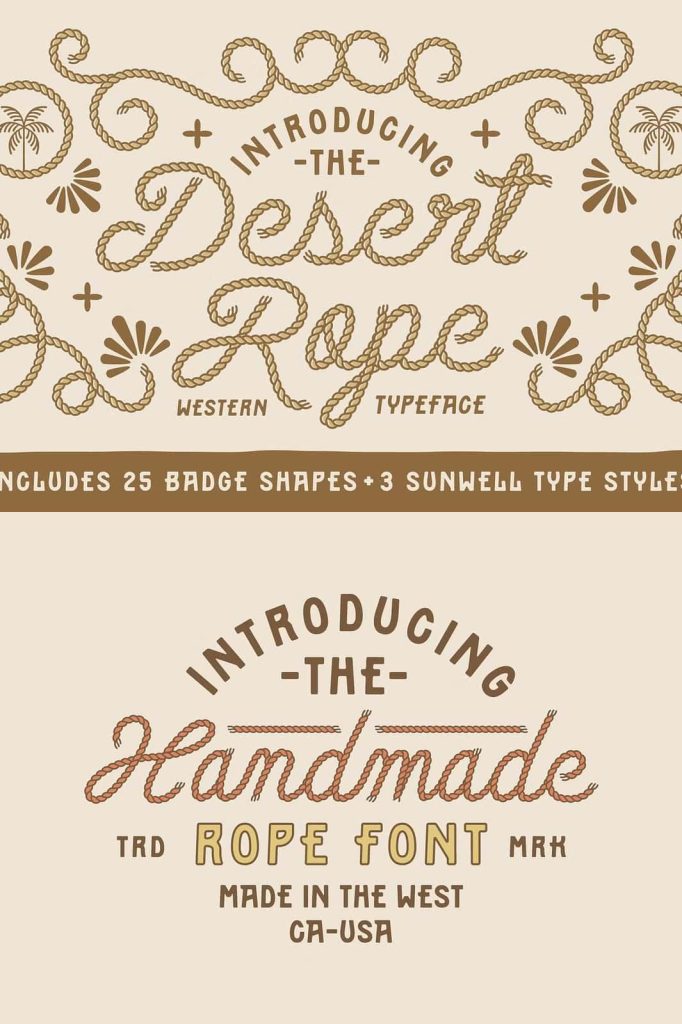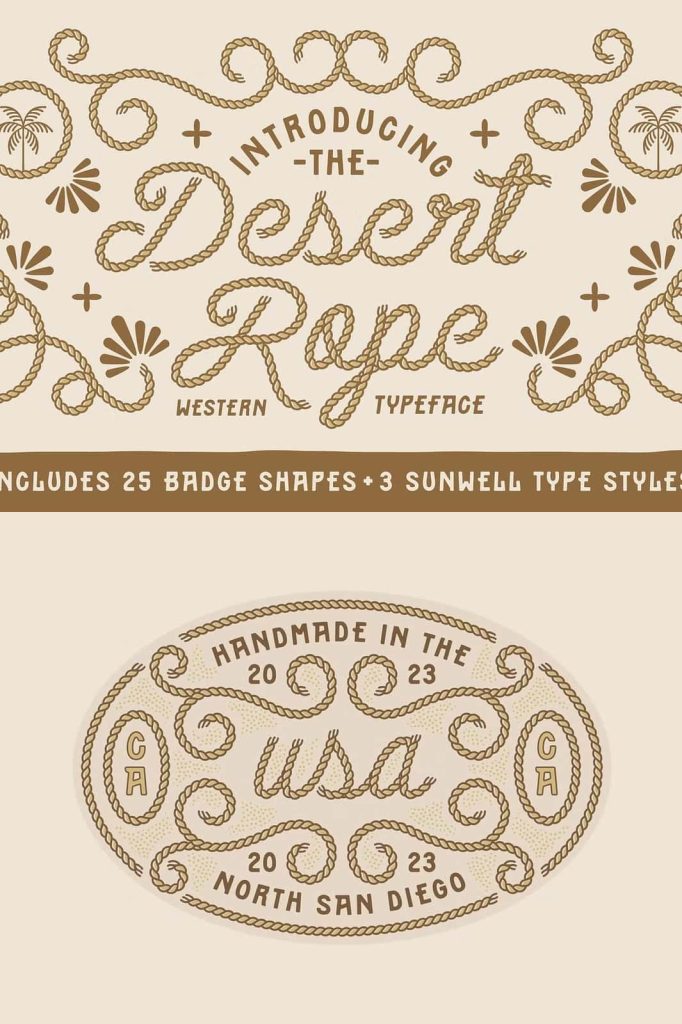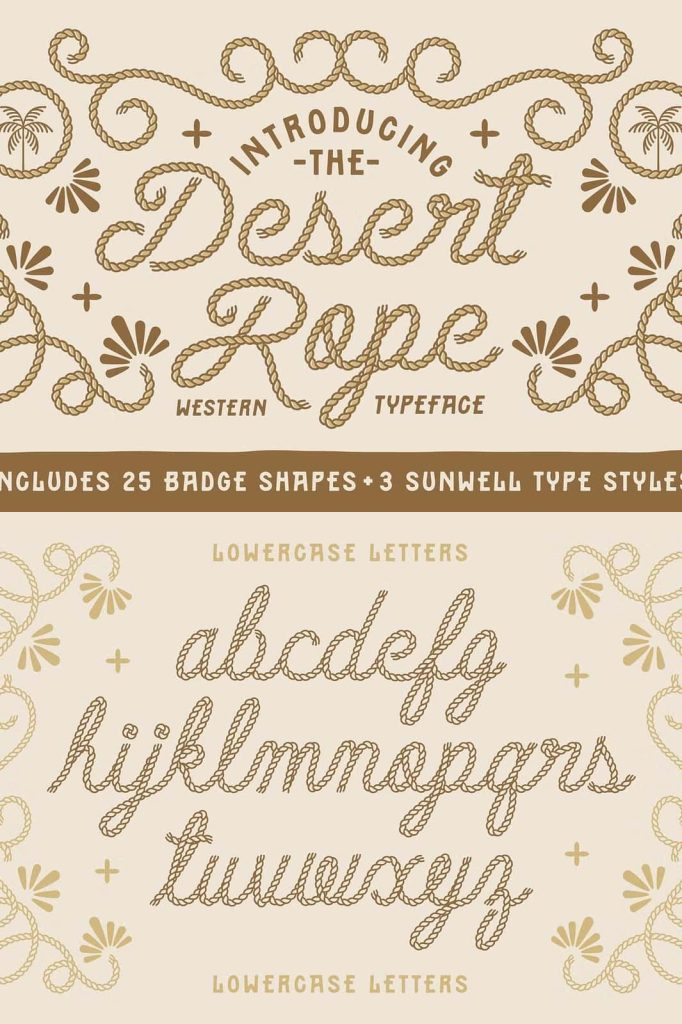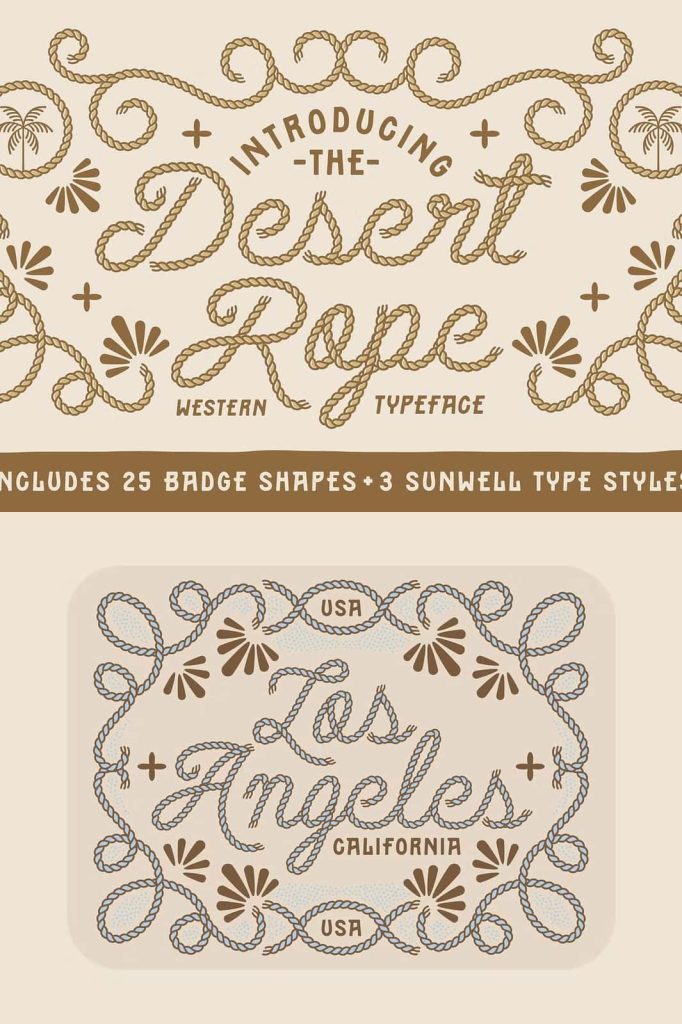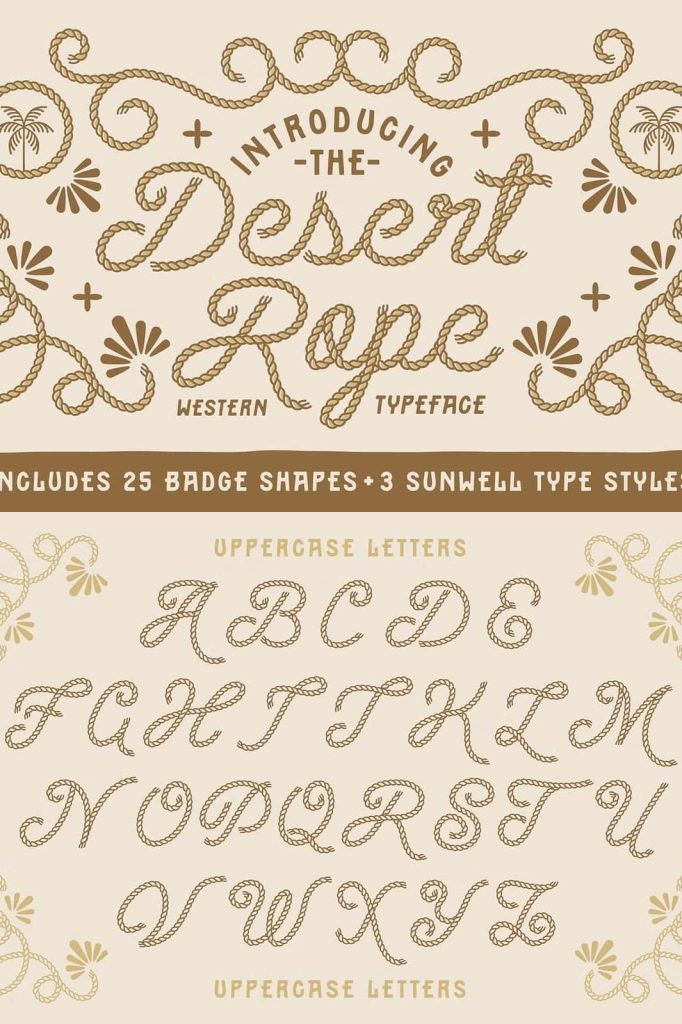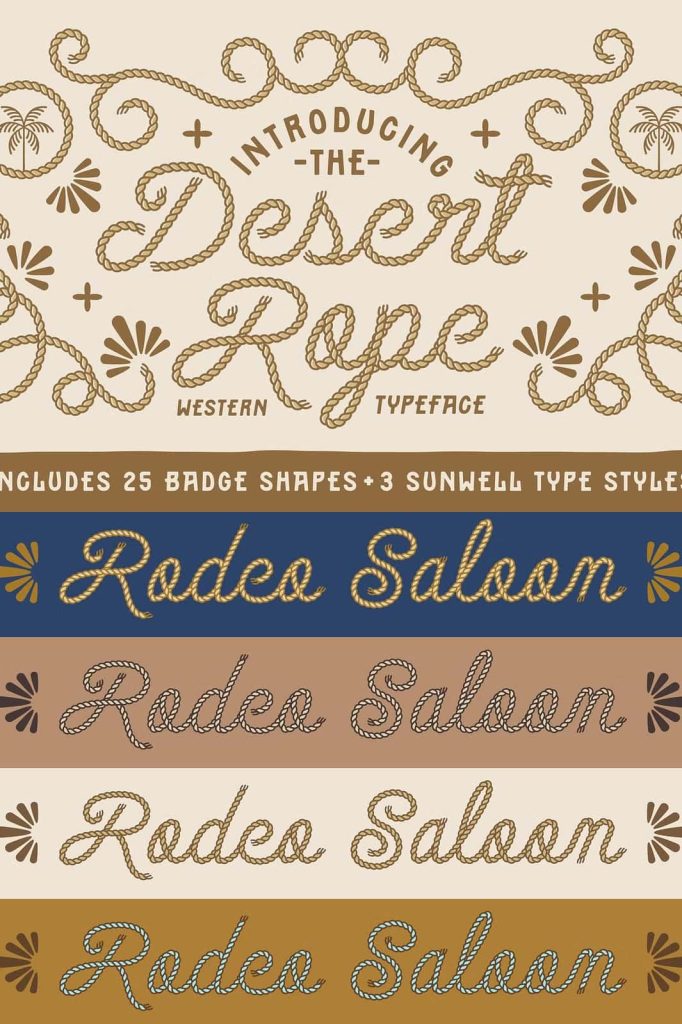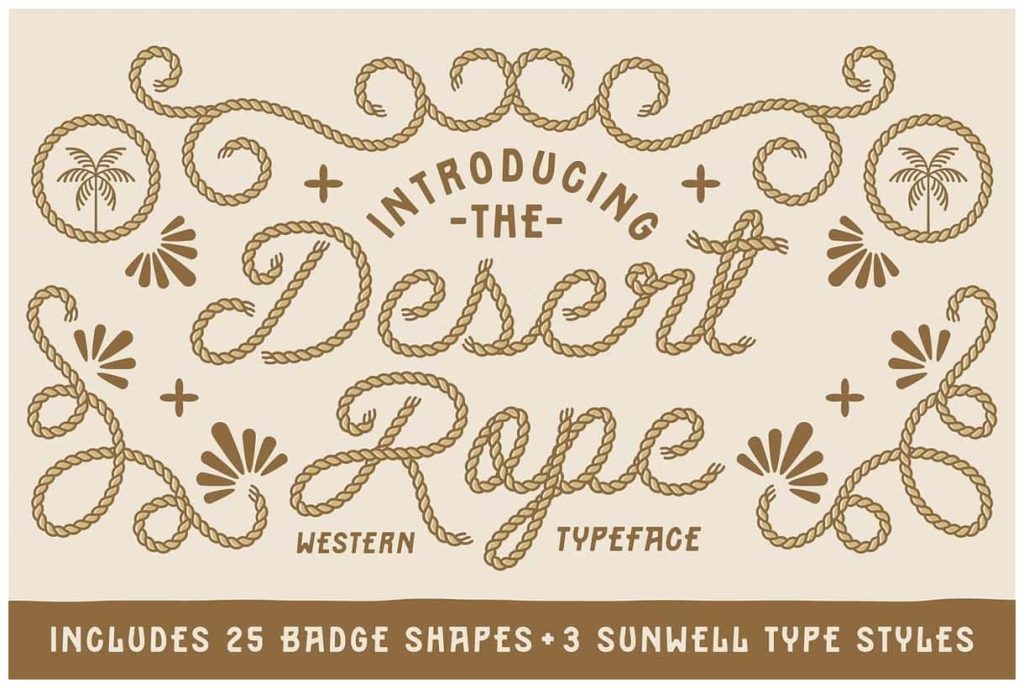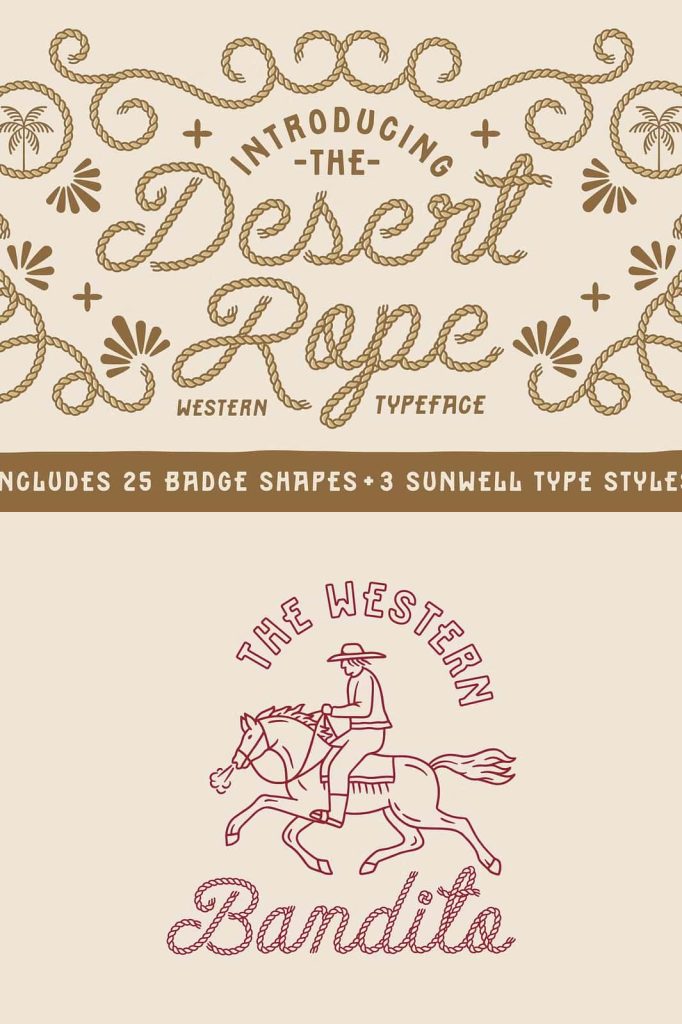
The Desert Rope typeface is here! Inspired by the loose twirls of a lasso, Desert Rope is a fully functioning script font that includes a wide range of character alternates and ligatures.